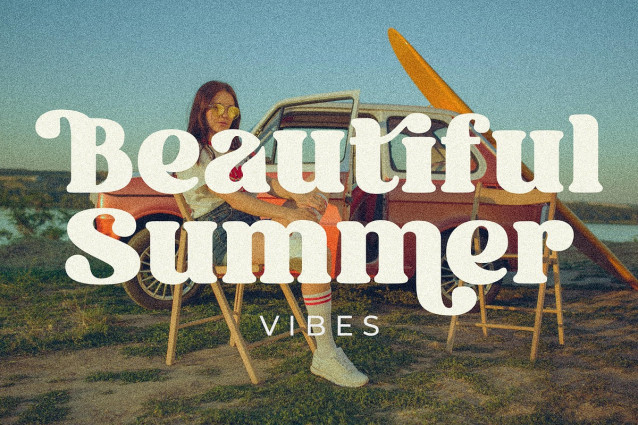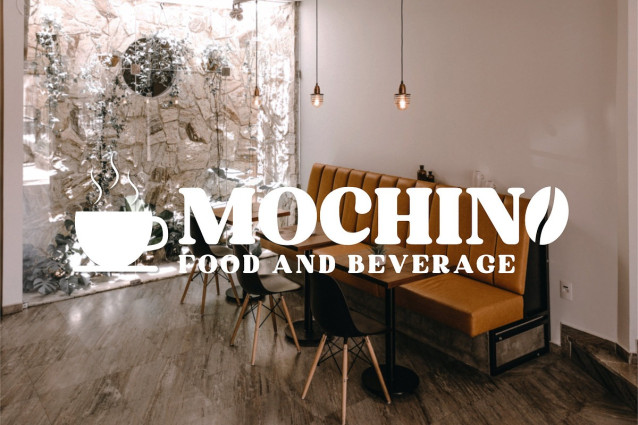
Qalista Font
Qalista Font is a modern bold serif font that showcases unique alternates and ligatures that add personality and style to your texts. This font is ideal for fashion, branding, and logo design projects that require a touch of confidence and charisma. Whether you need a font for a luxury brand, a high-end product, or an exclusive event, Qalista will make your design stand out with its refined and modern appeal. Get Qalista today and enjoy its beauty and quality.